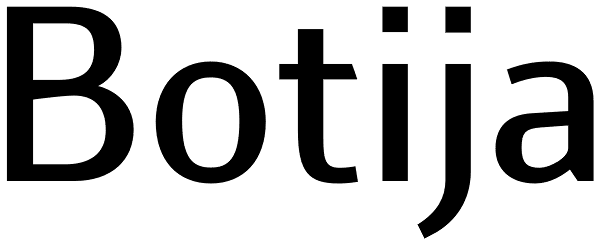
Botija
With a gentle, modulating effect and very neat from a formal point of view, Botija is ideal for medium sized texts: it is a font family with a unique style. Created initially as a reinterpretation of Bodoni, it maintains a sharp vertical axis and a...